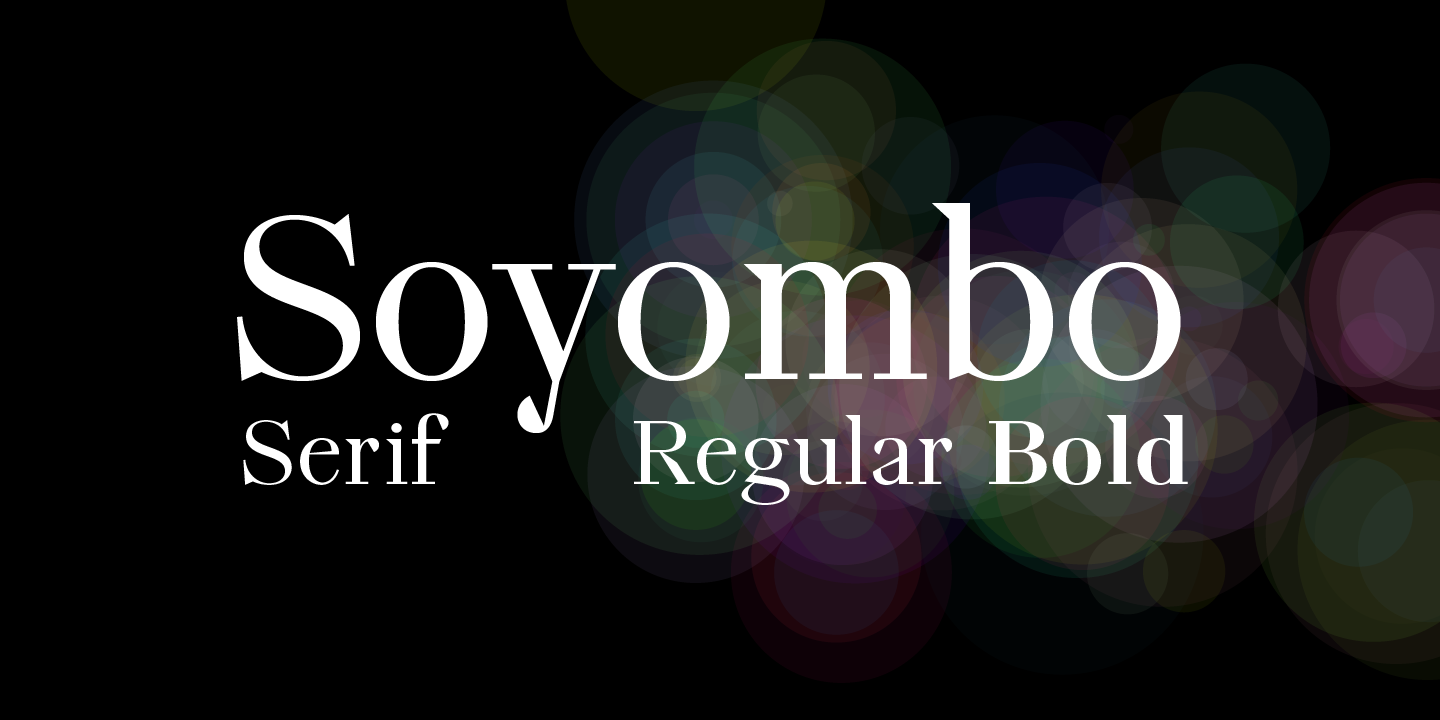
Soyombo Serif Font is perfect for Mongolian cultural center materials, Asian philosophy publications, Buddhist temple signage, ancient wisdom book covers, spiritual retreat programs, meditation center branding, Eastern philosophy journals, cultural heritage museums, traditional arts exhibitions, nomadic culture displays, spiritual guidance materials, and cross-cultural academic research presentations. This distinctive typeface brings authentic Eastern wisdom to projects requiring spiritual depth and cultural reverence.
What makes Soyombo Serif Font so exciting is its profound ability to honor ancient Mongolian heritage while bridging Eastern and Western typography through beautifully crafted letterforms that embody the spiritual significance of the sacred Soyombo symbol. The font features elegantly structured characters with subtle Eastern influences and meditative proportions that reflect the harmony and balance central to Mongolian philosophy. Its contemplative character conveys wisdom and cultural respect while maintaining excellent readability, making it perfect for institutions seeking to communicate spiritual depth, cultural appreciation, and the timeless wisdom of Eastern traditions with authentic reverence.
The Soyombo Serif Font family includes multiple contemplative weights and culturally-inspired variations that showcase its Eastern heritage while providing comprehensive design flexibility for various spiritual and cultural applications. Each variant maintains the original's meditative character while offering extensive options for creating meaningful typographic compositions that honor ancient wisdom and spiritual traditions.
Whether you're developing cultural institution identities, creating spiritual communication materials, or designing Eastern philosophy publications, Soyombo Serif Font Free Download offers the perfect combination of cultural authenticity and contemporary functionality. This exceptional typeface brings genuine Eastern wisdom to design projects, making it an indispensable choice for designers seeking typography that effectively communicates spiritual depth, cultural reverence, and the profound beauty of ancient Mongolian heritage with respectful cultural sensitivity.